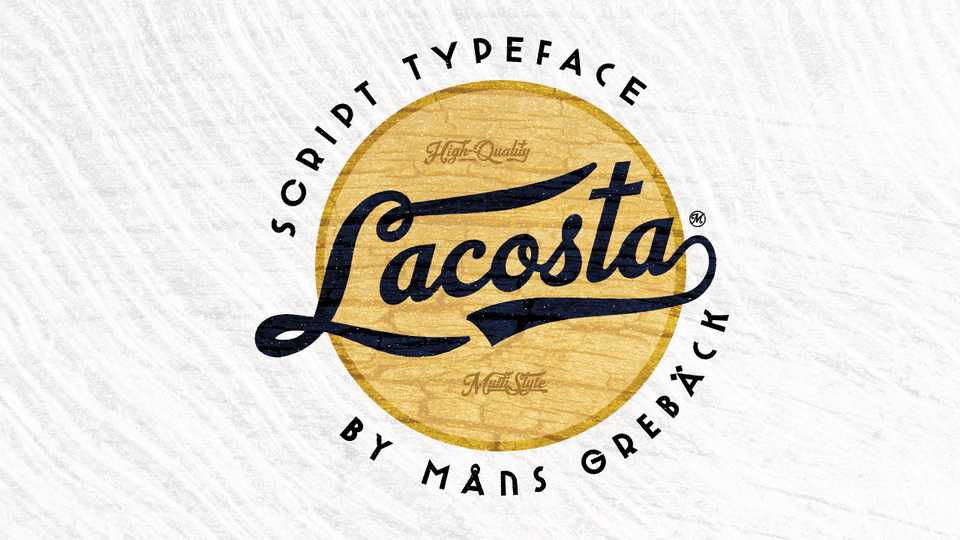
Download Lacosta font, a decorative script typeface with a vintage look. Lacosta is perfect for company or product logotypes, or any typographic art that requires that classic custom look.
Designer: Måns Grebäck